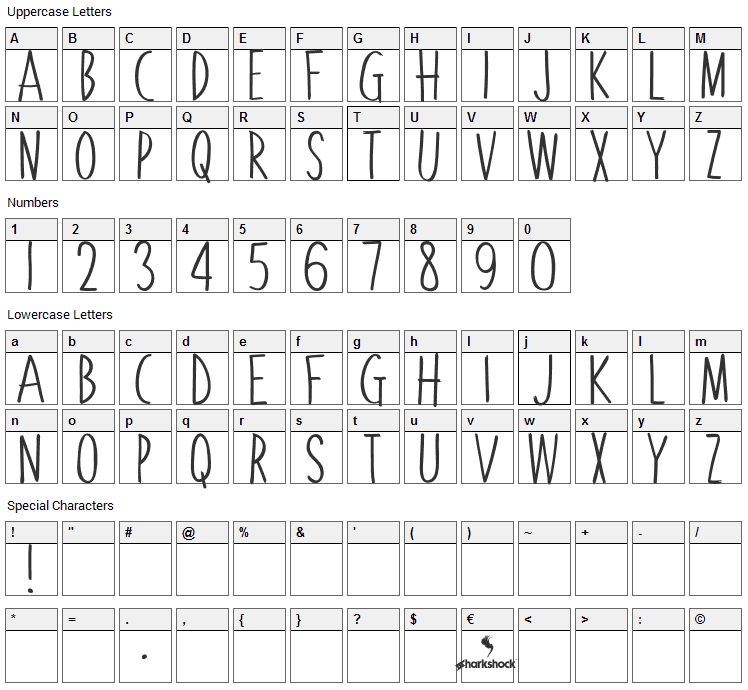
Lemonade Stand Font
Looking for the perfect all-caps display font to accentuate your next project? Lemonade Stand is a stylish yet childlike sans serif that doesn’t take itself too seriously. The characters are designed with minimum contrast to roughly resemble the strokes of a thin paintbrush. Feature it in a logo, on packaging, or in a children’s book. Basic Latin, extended Latin, diacritics, Cyrillic, punctuation, and kerning are all included in the full version. The demo features basic Latin, Cyrillic, and limited punctuation.